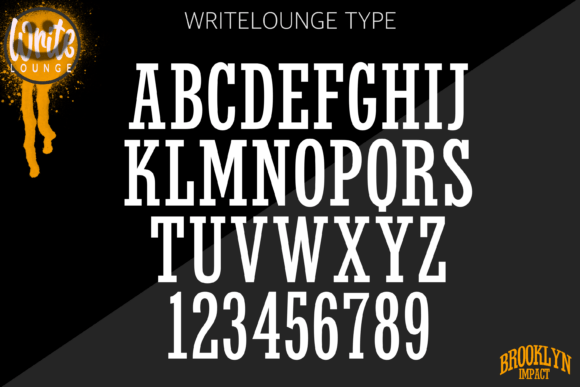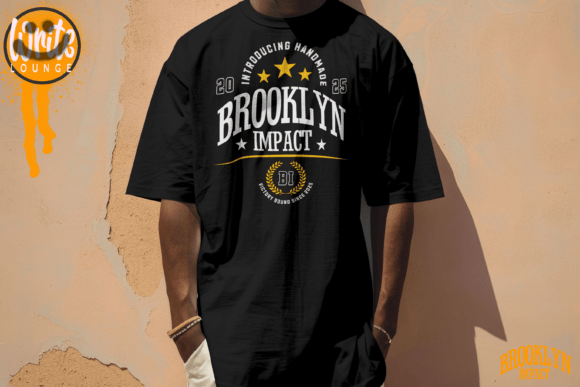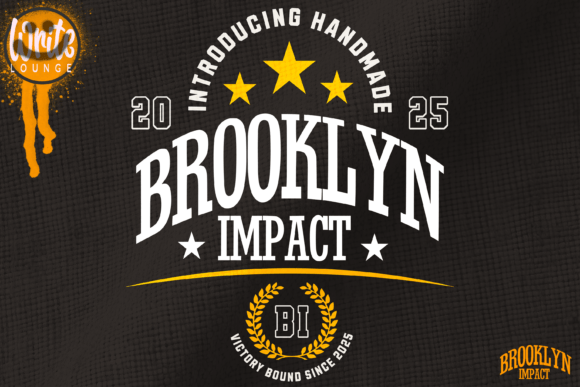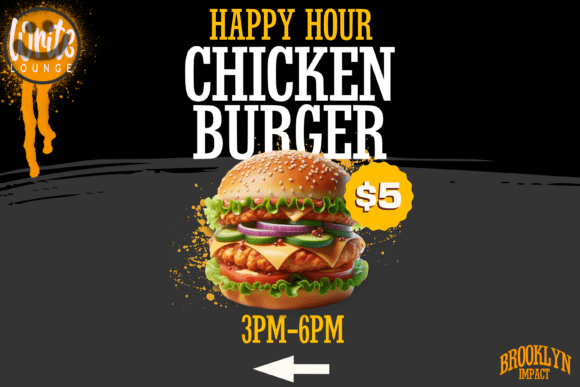
Introducing Brooklyn Impact Font: The Ultimate Choice for Sports and Team Branding
In the world of design, typography plays a crucial role in conveying the message and tone of a project. For sports teams, universities, and brands looking to make a bold statement, a font that exudes strength, athleticism, and dynamism is essential. This is where the Brooklyn Impact Font comes into play – a bold, all-uppercase college varsity font designed specifically for sports, team branding, and bold statement designs.
Inspired by Classic University Lettering
The Brooklyn Impact Font draws inspiration from classic university lettering, which is characterized by its bold, confident, and dynamic style. The font’s design is reminiscent of traditional varsity fonts used in sports teams, universities, and colleges across the United States. With its strong and athletic feel, Brooklyn Impact is perfect for designers and crafters looking to create bold and eye-catching designs that command attention.
Key Features of Brooklyn Impact Font
- Bold and All-Uppercase Design: Brooklyn Impact is an all-uppercase font that makes a bold statement with its strong and confident lettering.
- College Varsity Style: The font’s design is inspired by classic university lettering, making it perfect for sports teams, universities, and colleges.
- Athletic and Dynamic Feel: Brooklyn Impact brings a strong, athletic, and dynamic feel to any project, making it ideal for bold statement designs.
- Highly Versatile: The font is suitable for a wide range of applications, including sports branding, team uniforms, merchandise, and more.
Use Cases for Brooklyn Impact Font
The Brooklyn Impact Font is a versatile typeface that can be used in various design projects, including:
- Sports Team Branding: Create bold and eye-catching logos, jerseys, and merchandise for sports teams.
- University and College Branding: Use Brooklyn Impact to create strong and confident branding materials for universities and colleges.
- Bold Statement Designs: Add a dynamic and athletic touch to your designs, including posters, flyers, and social media graphics.
- Merchandise and Apparel: Use Brooklyn Impact to create bold and stylish merchandise, such as t-shirts, hats, and water bottles.
Why Choose Brooklyn Impact Font?
With so many fonts available, why choose Brooklyn Impact? Here are a few reasons:
- Unique and Distinctive Design: Brooklyn Impact has a unique and distinctive design that sets it apart from other fonts.
- High-Quality Typography: The font is designed with high-quality typography in mind, ensuring that your designs look professional and polished.
- Easy to Read and Versatile: Brooklyn Impact is easy to read and versatile, making it suitable for a wide range of applications.
In conclusion, the Brooklyn Impact Font is a bold, all-uppercase college varsity font that is perfect for sports teams, universities, and brands looking to make a bold statement. With its strong and athletic feel, Brooklyn Impact brings a dynamic touch to any project. Whether you’re a designer or crafter, this font is sure to become a valuable addition to your toolkit.